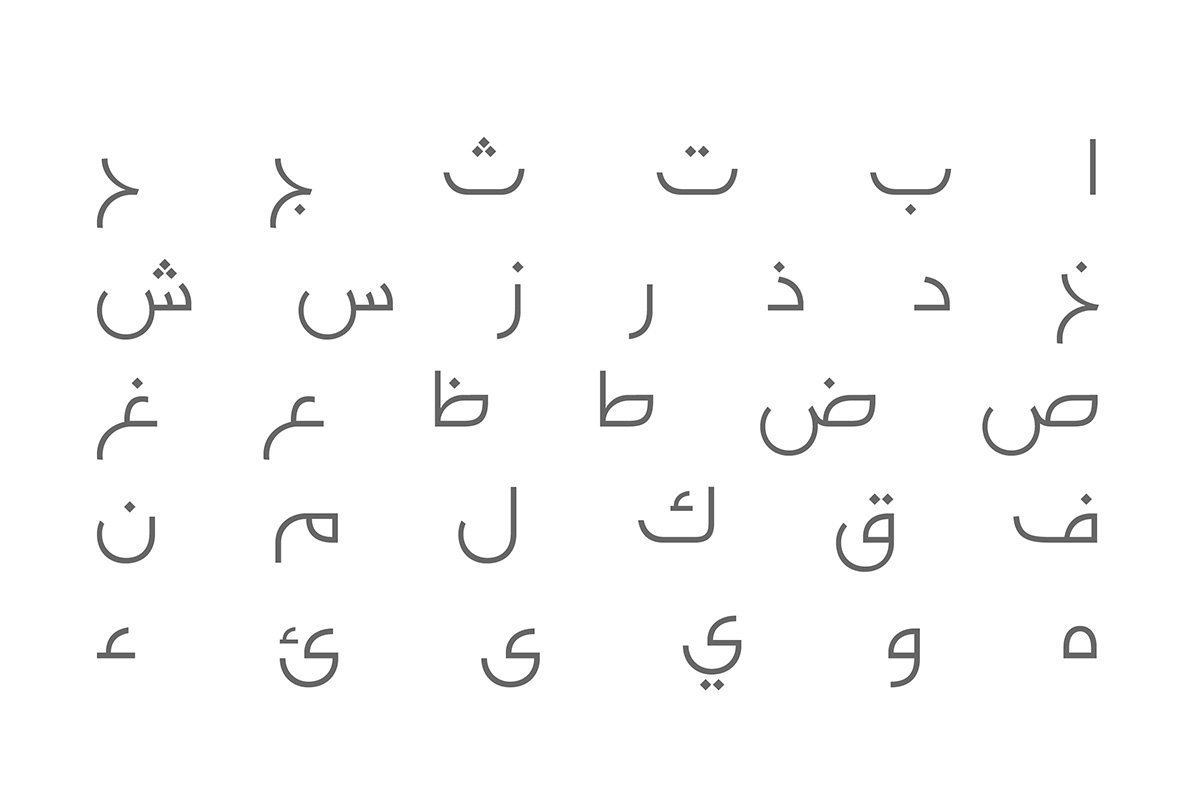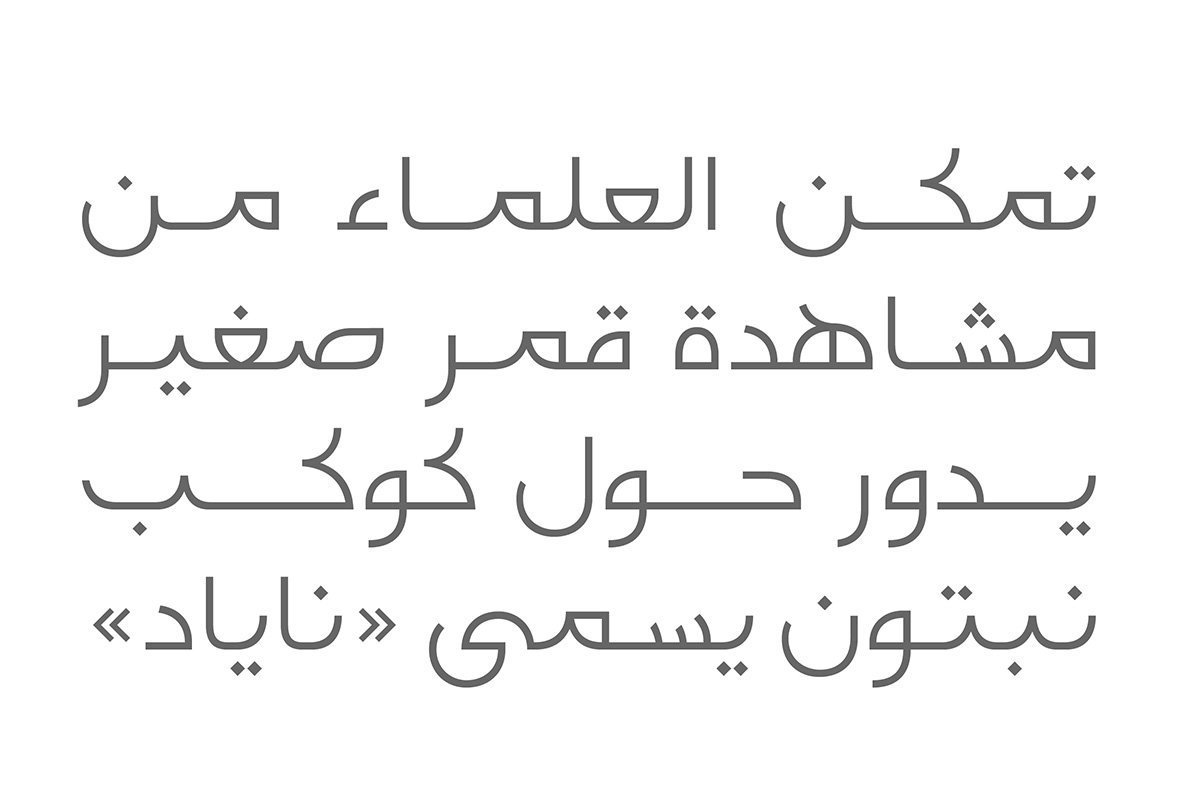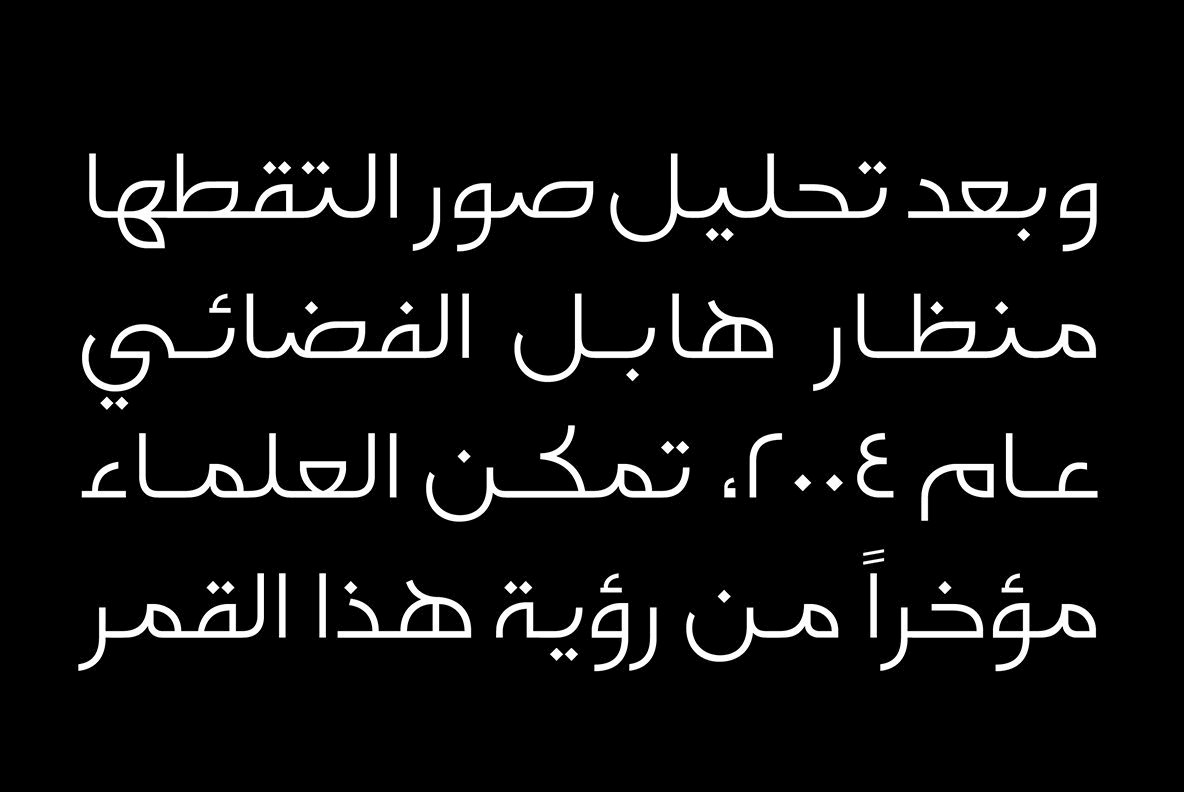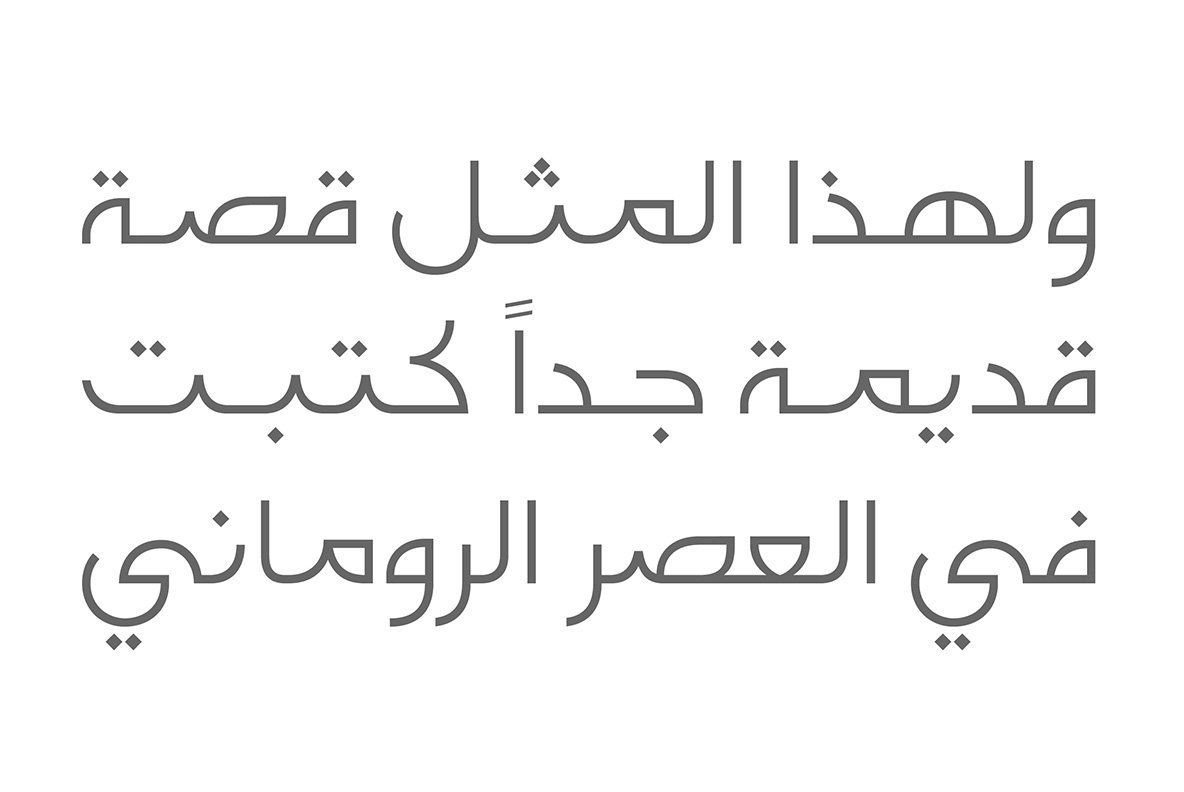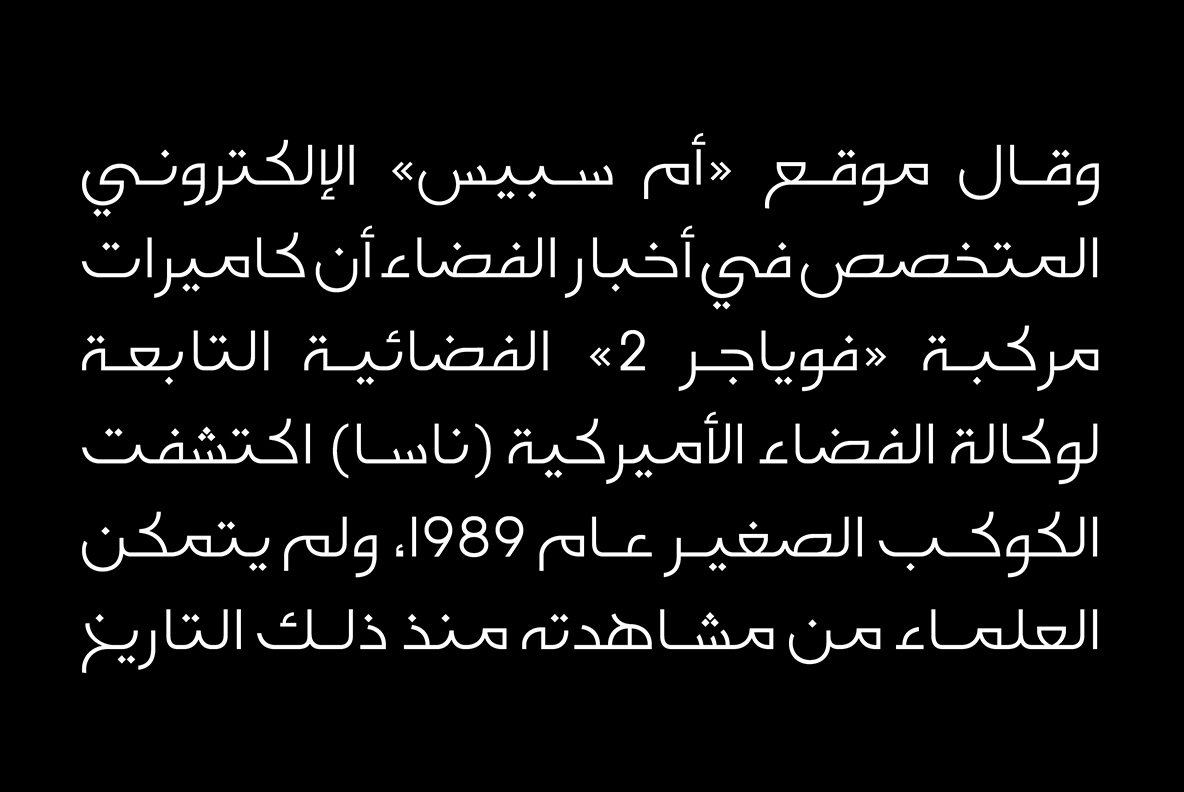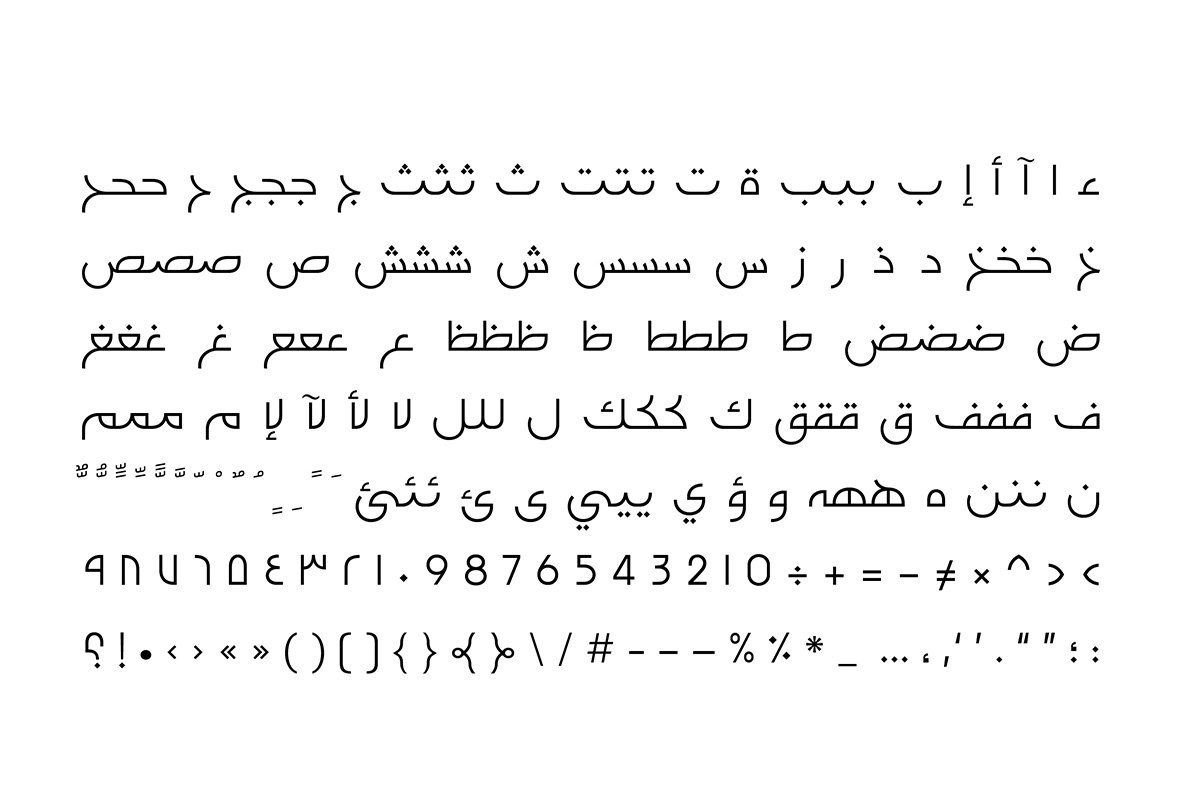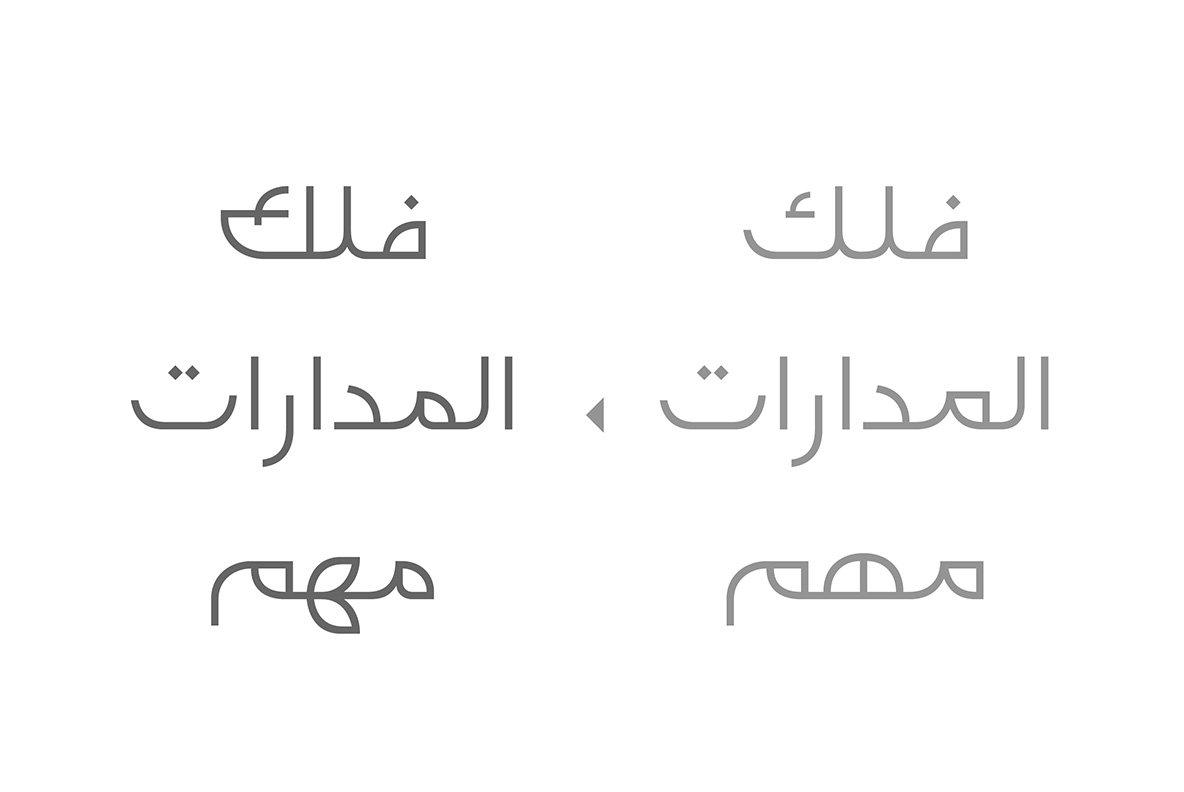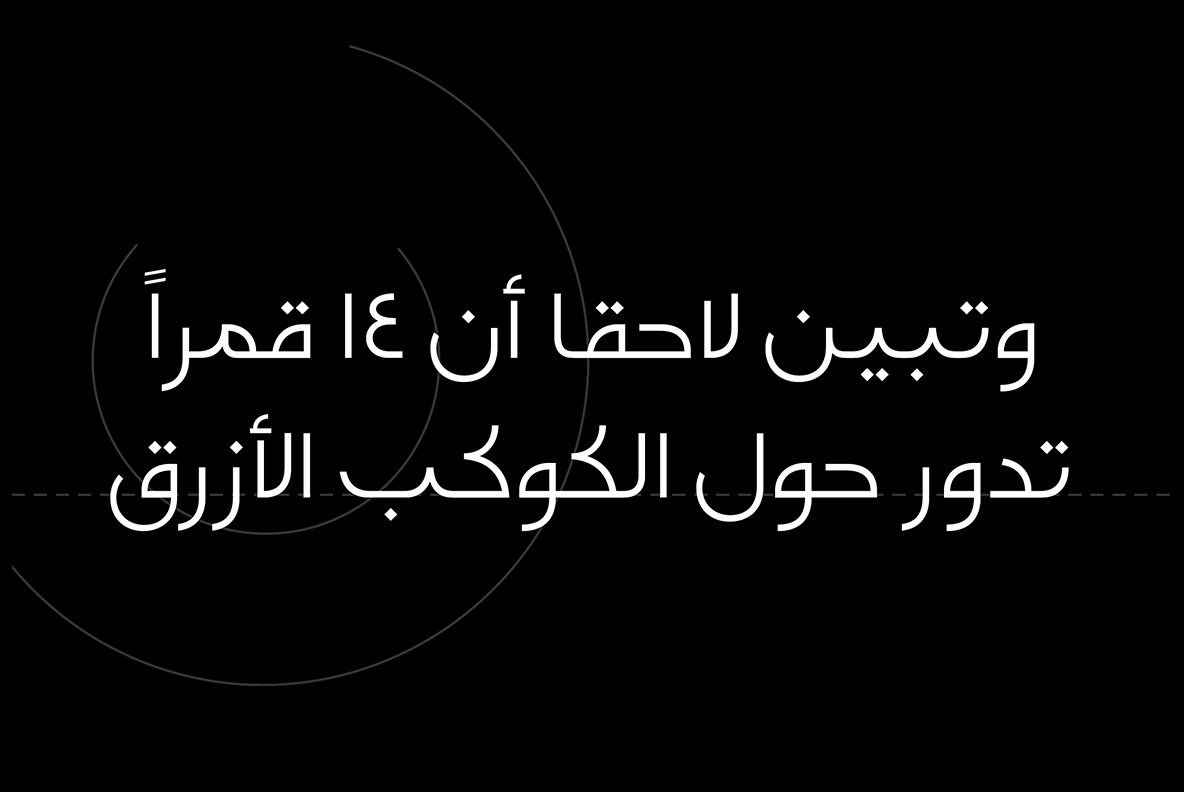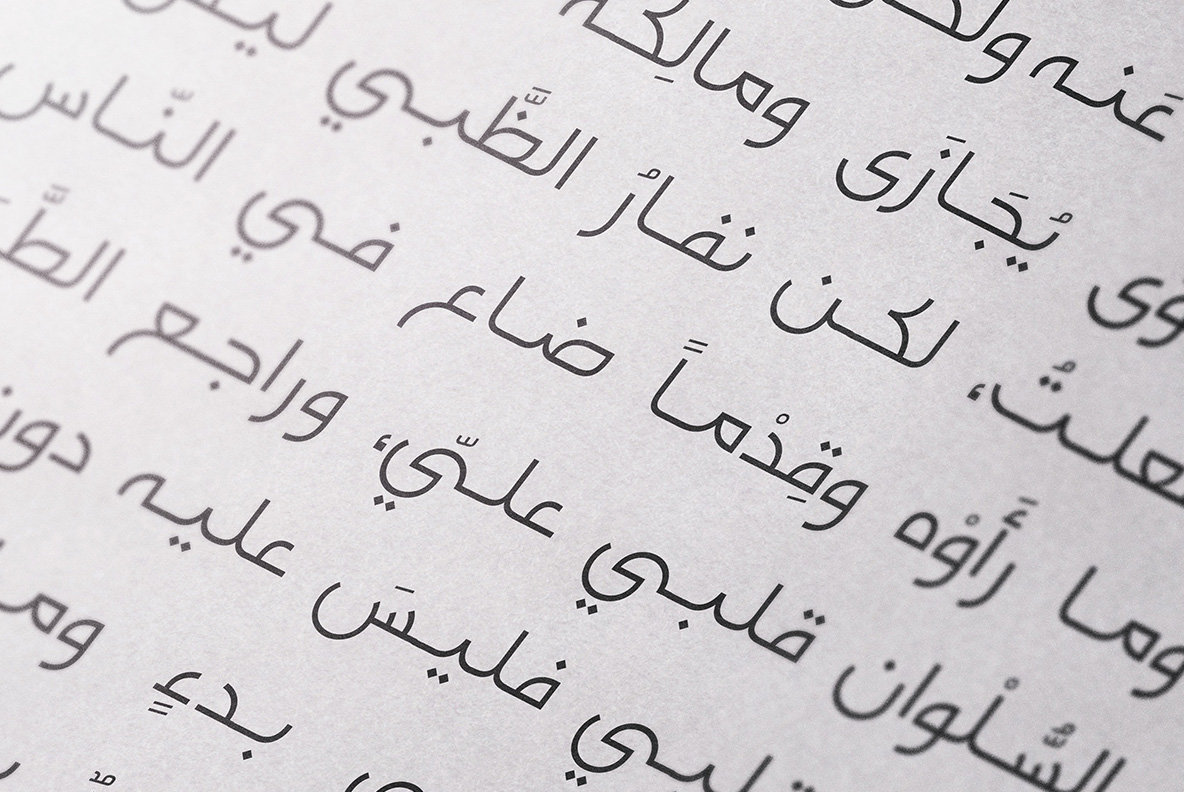
Falak Font
Falak is an Arabic display font with rounded letterform that is inspired by the theme of astronomy and natural science. The font includes a stylistic set and it suits creative titling for both web and print.